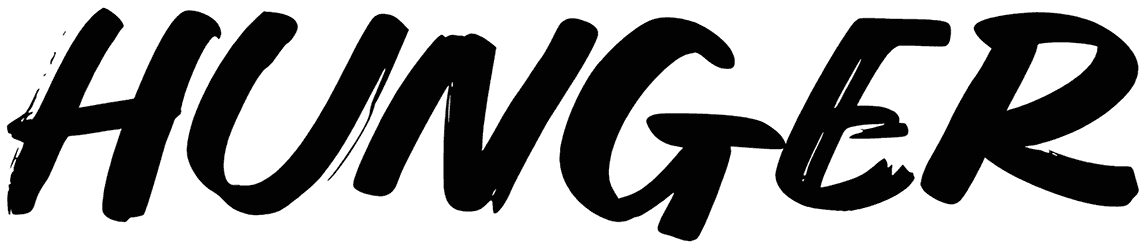
Hunger Font
Keep your typography friendly and consistently fantastic through the cursive outward of this brush font. The approachable, warm, and natural letterforms of Hunger can be applied to headings, greeting cards, cosmetic bran…
Keep your typography friendly and consistently fantastic through the cursive outward of this brush font. The approachable, warm, and natural letterforms of Hunger can be applied to headings, greeting cards, cosmetic brands, and other needs.
However, the lowercase letters aren’t contained; they’re in the lead. Push this slanted bold font and offer it in the real world. To get more of this collection, come on and scroll up, RB.